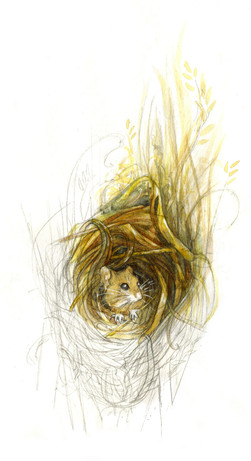
amwahNested Font
Description For a typography project, I designed a font using bird's nests...
Did you make all 26 ... an F and an O?  The FOO  ;D
This is beyond awesome, I would love to have this for use. A shame you didn't do the whole alphabet.
Amazing! The detail and concept is wonderful.
wow. I just recently had to design a font myself, and yours makes mine looks like a kid's drawing! good job!
......funky AND gorgeous..
i love nests,this is very quaint and amusing!
very cool typography, did you do an entire alphabet?
Thanks! I didn't-the project didn't require it, but I wouldn't have minded if I did have to do 26 of them!
I think it would be really cool to have a whole alphabet done like that, all though I'm sure it would be a ton of work.
Awesome work! Always have loved typography, and this is one of the better examples I've seen on exactly what goes into the genre.
This is one of the, if not THE, best fonts I've seen. Really blew me away.
wow, from thumbnail i was like wtf, but then when i see this in larger view, it's amazing
great shapes